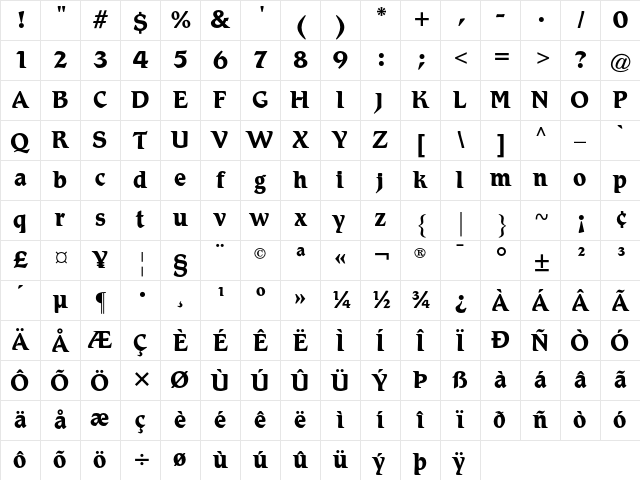
ATRomic Regular
ATRomic Family
Design Context for ATRomic
ATRomic is a composed and adaptable typeface that performs quietly and consistently across a wide range of design contexts.
Pro Tip: Use ATRomic in both headline and body roles to test its range before committing to a single application.